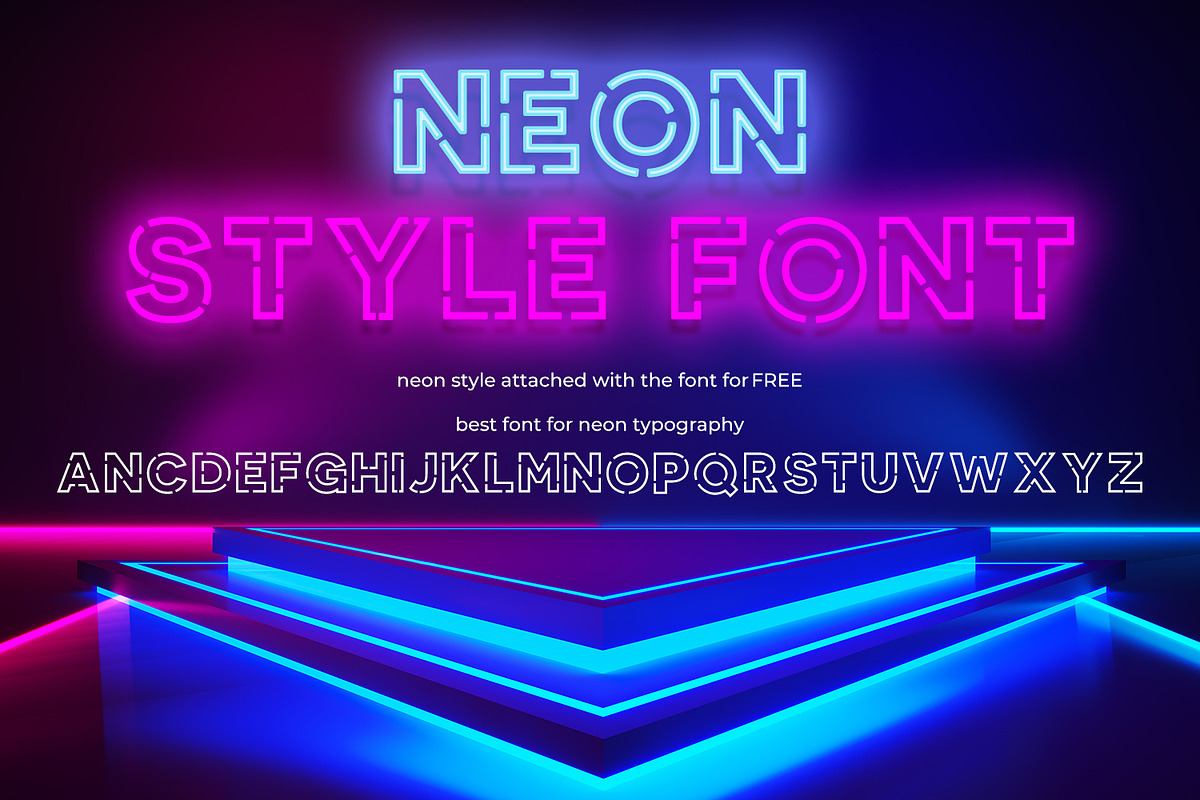
Please note that you must purchase this font for commercial use. You can download Neon Style Font for free, strictly for personal testing purposes only. Neon Style is a vibrant, glowing display font designed to mimic the look of real neon signage. With smooth curves, tubular letterforms, and electrifying energy, Neon Style Font Free Download is perfect for nightlife branding, music posters, bar or club signage, retro designs, party invitations, and eye-catching social media graphics.
This font brings the bold and colorful aesthetic of neon lights to your digital and print projects. It typically includes uppercase and lowercase letters, numerals, punctuation, and multilingual support—offering flexibility for various creative uses.
Whether you're creating a vintage diner vibe or a futuristic night scene, Neon Style adds instant flair and visual excitement.